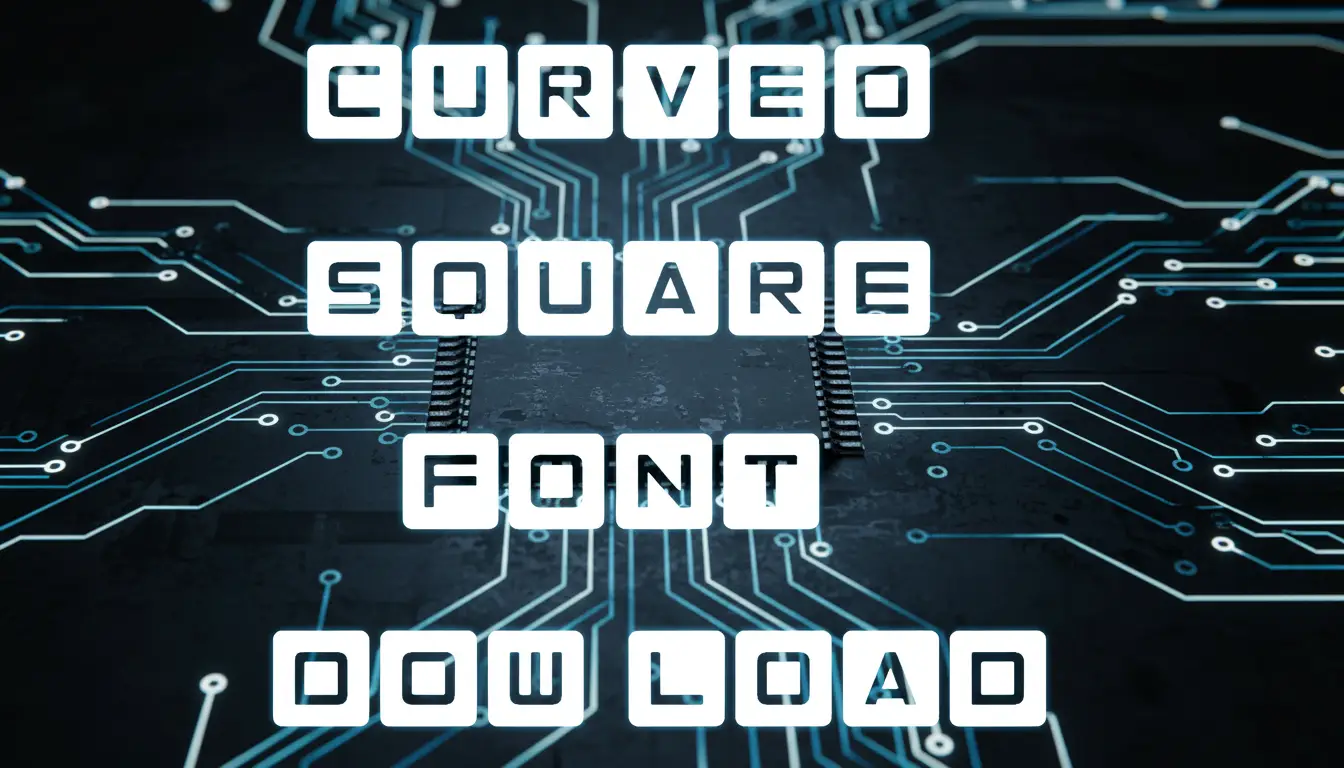
Curved Square Font
Curved Square
Curved Square is a techno font designed by Darrell Flood and published by High-Logic / Made with FontCreator. Its angular, engineered shapes look right at home on screens and tech products. You can download it for free and test it with your own words in the preview above.
What You Can Type With Curved Square
You get every letter from A to Z in both cases and all the numbers from 0 to 9, which means Curved Square can handle full sentences, dates and prices. Common punctuation such as &, !, ? and @ is included as well. It doesn't include accented letters such as é or ñ, which makes it an English-only font.
Where Curved Square Works Best
Curved Square is a natural fit for gaming logos, tech branding and futuristic posters. Try it on a dark background with a bright accent color for a sharp, modern look.
Does Curved Square support accented letters?
No. Curved Square has no accented letters such as é, ñ or ü, so it's best for English text.
What fonts pair well with Curved Square?
A simple sans serif like Roboto keeps longer text easy to read next to it.